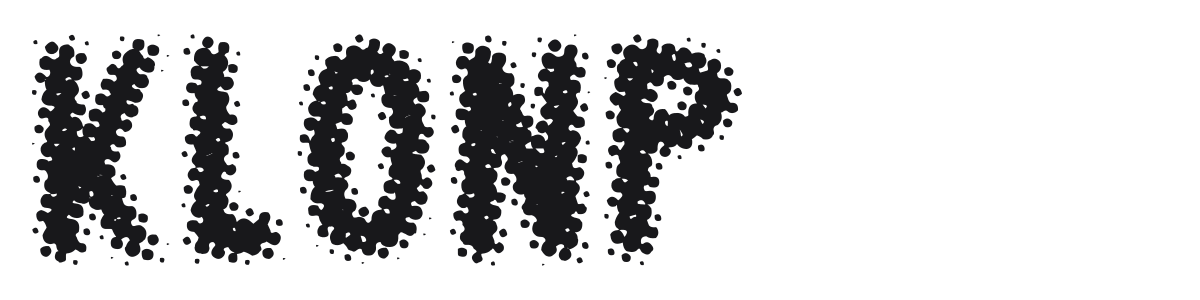
Klonp
Klonp is a bold condensed display font built entirely from halftone dots, creating a coarse screen-printed texture across every character. The blocky italic structure underneath the dot pattern gives it a stencil-like weight, while the breakdown of smooth edges keeps it raw and energetic. It suits posters, band flyers, and any context where distressed texture is part of the message.